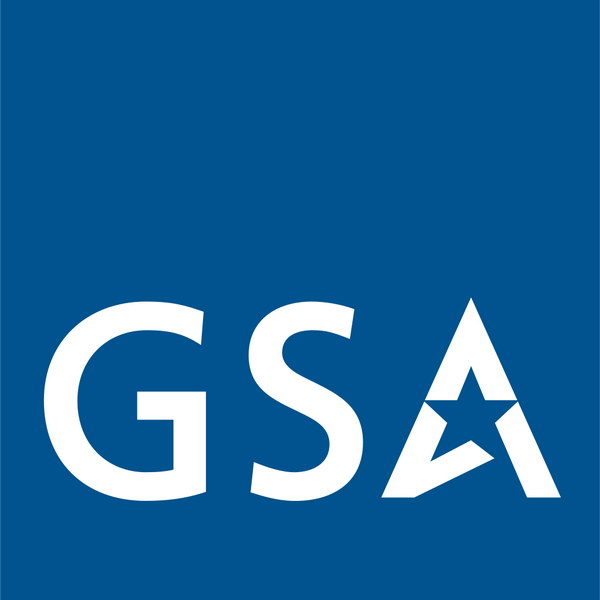
GSA Font
Fonts in UseGSA stands for General Services Administration, a U.S. government agency responsible for managing federal buildings, supplies, and transportation services. It also provides technology and procurement services for other federal agencies.
It's likely that the GSA logo was custom-designed using Frutiger Bold, a simple and highly legible sans-serif typeface created by Adrian Frutiger in 1976 for the Charles de Gaulle International Airport's signage system. You can learn more about the font here.